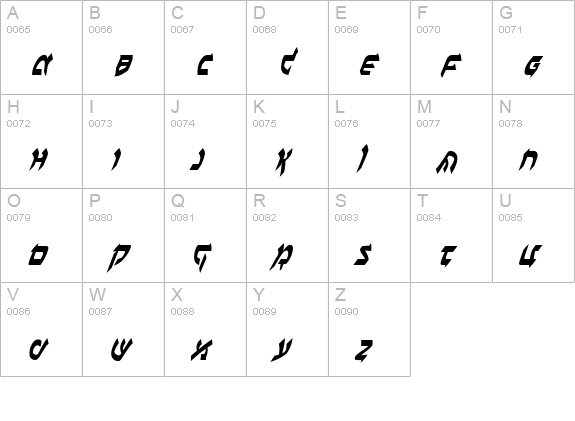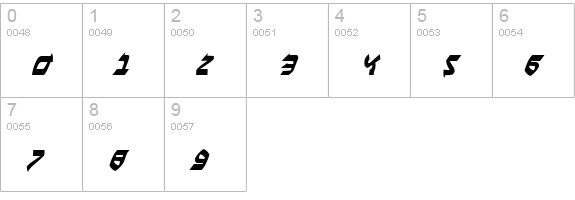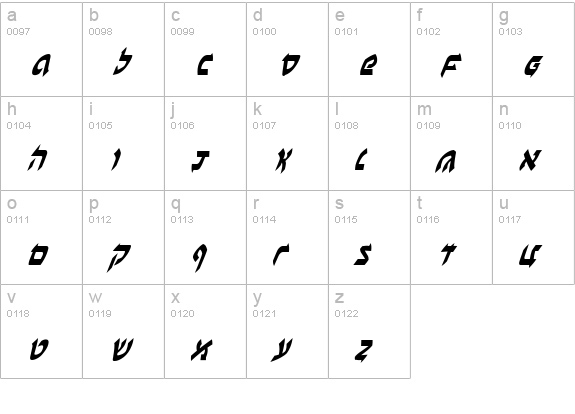
Ben-Zion Condensed Italic Font Details
Ben-Zion Condensed Italic is a distinctive, condensed-width, italic variant in the Ben typeface family \xE2\x80\x94 well suited to design and typography projects.
The Ben-Zion Condensed Italic font is a sleek and modern typeface that exudes elegance and sophistication. Its condensed form gives it a stylish and contemporary look, perfect for adding a touch of class to any design project. The italic style adds a sense of movement and flair, making it ideal for titles, headings, and other prominent text elements. This versatile font is free to download at FontsMarket.com, making it accessible to designers and creatives looking to enhance their work with a high-quality typeface. Whether you're working on a website, a branding project, or a print design, the Ben-Zion Condensed Italic font is sure to elevate your work and leave a lasting impression. Add a touch of refinement to your designs with this stunning typeface that combines modernity with sophistication.